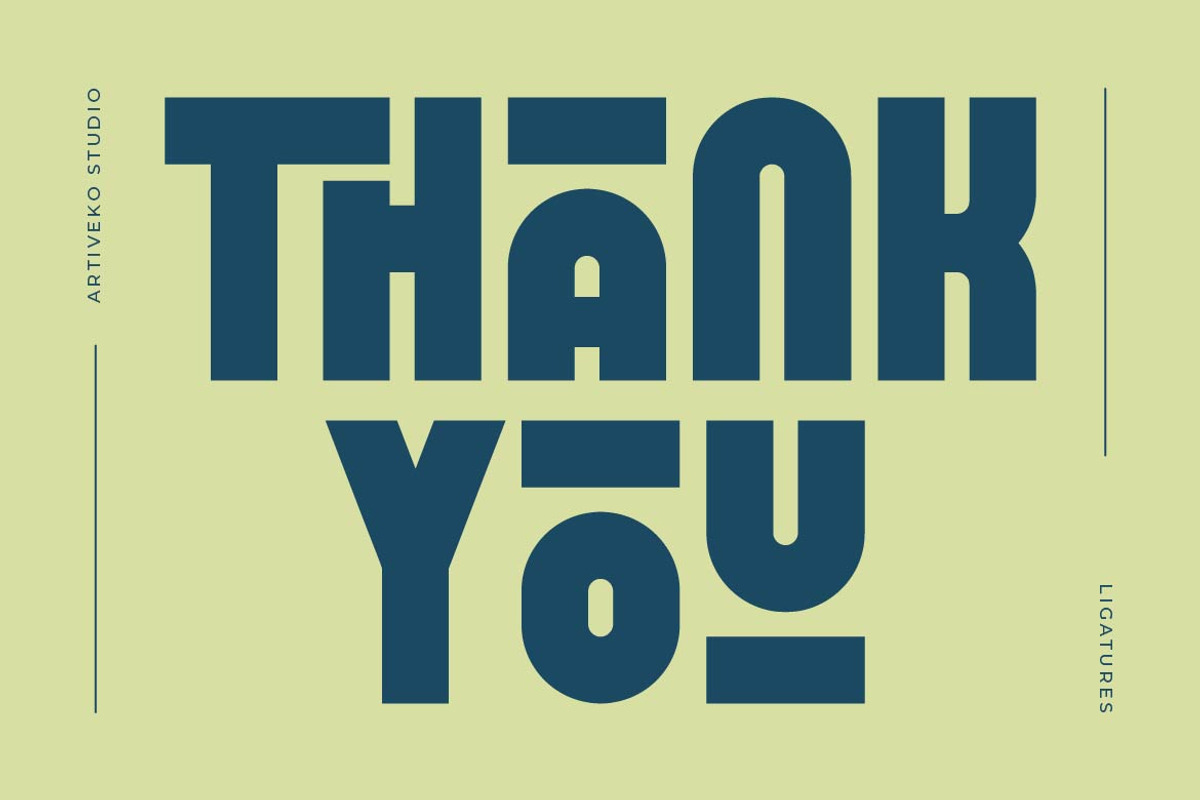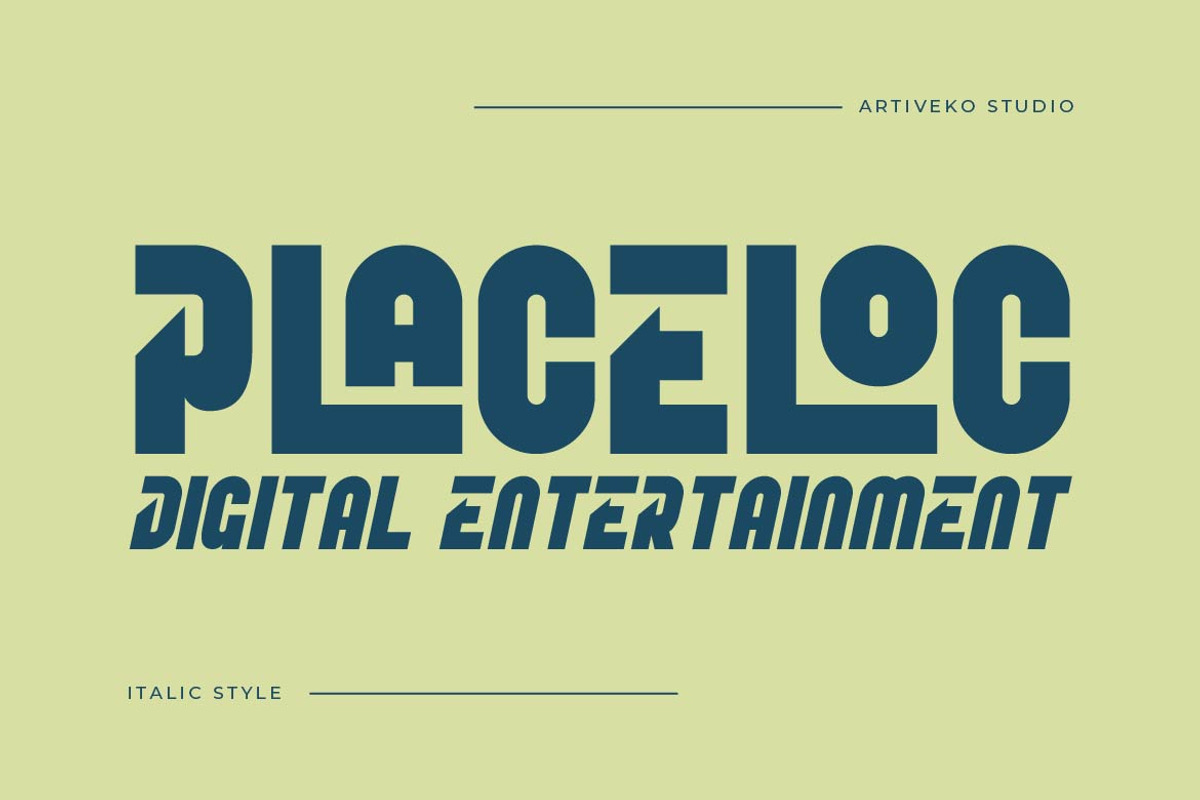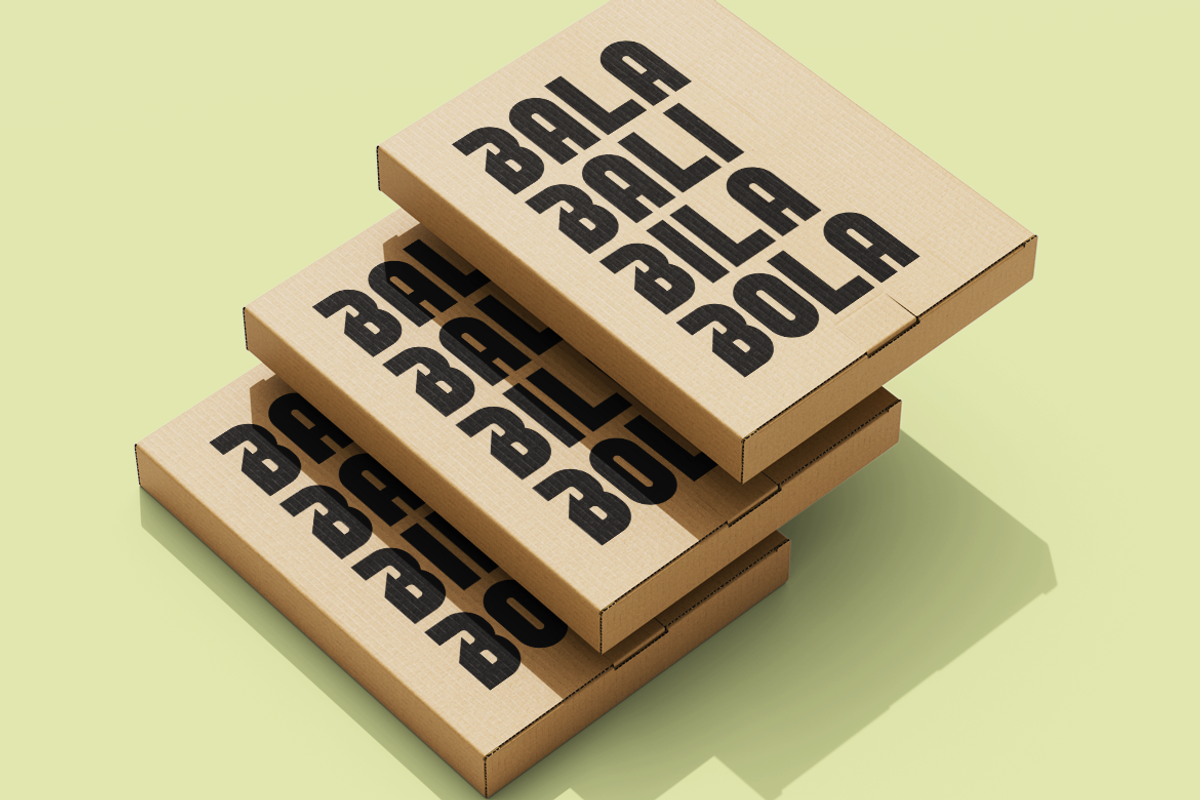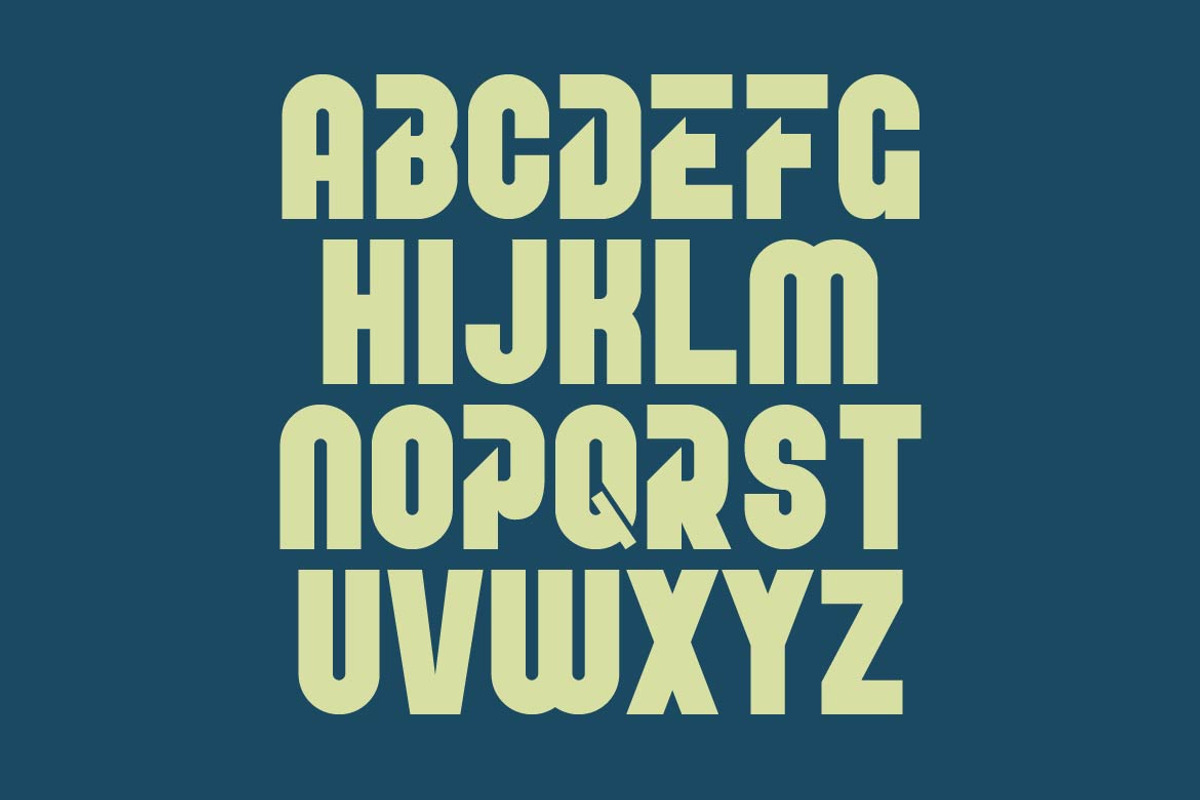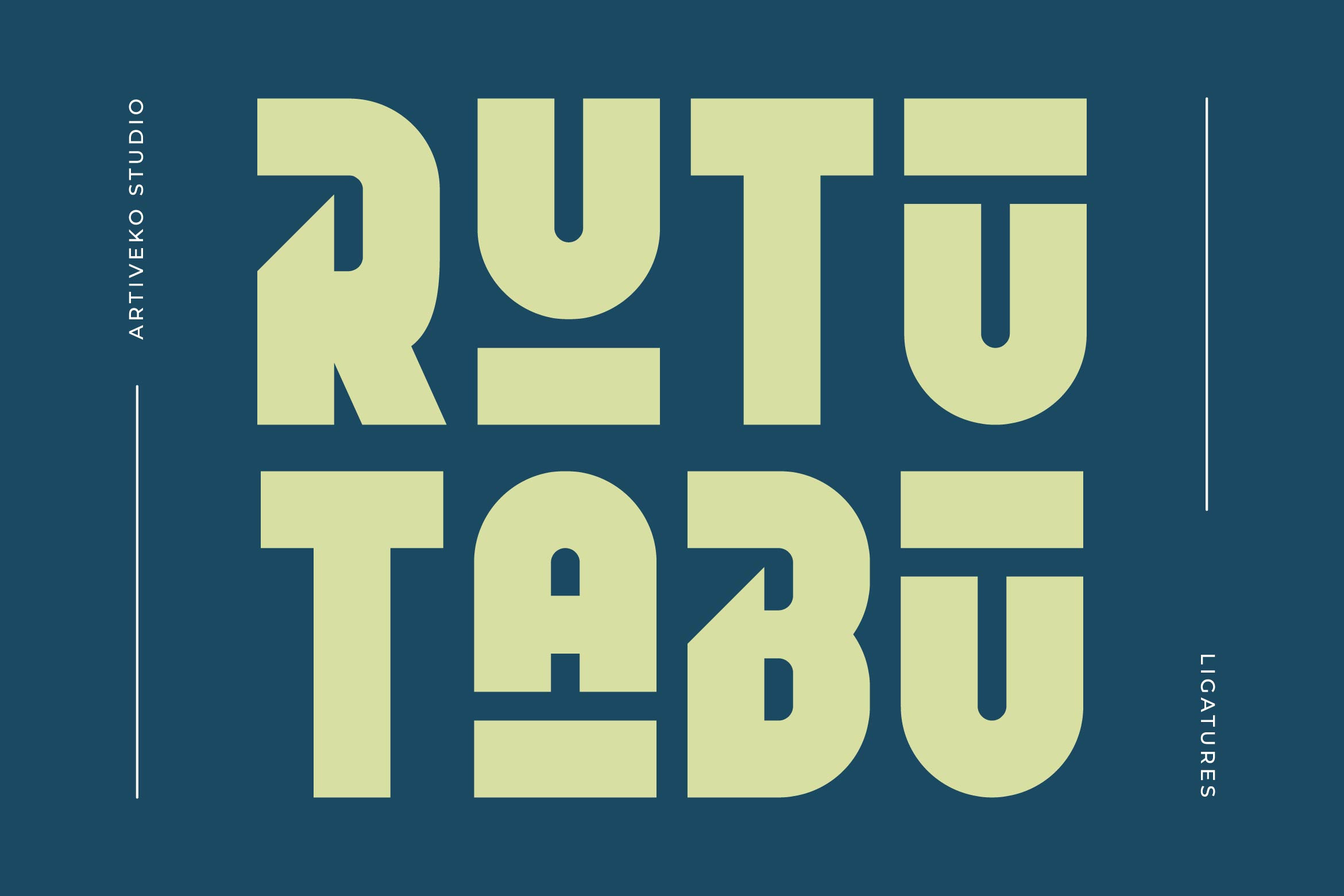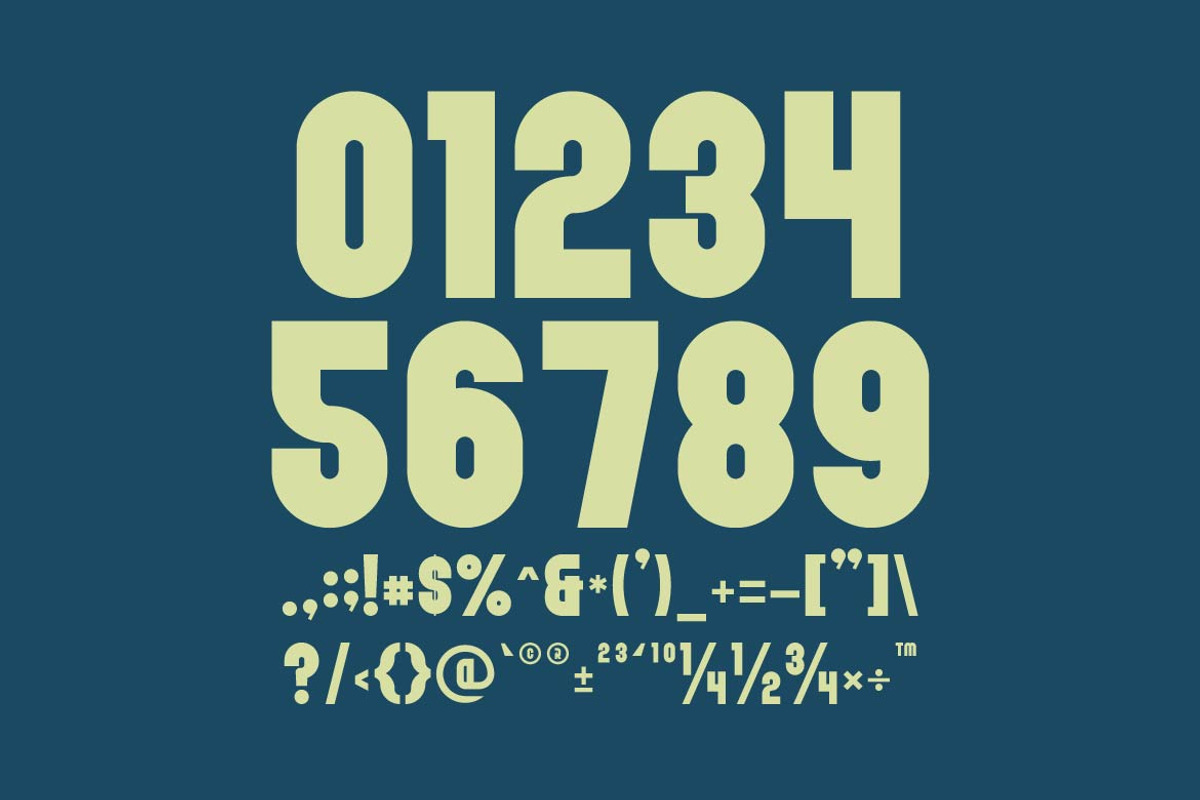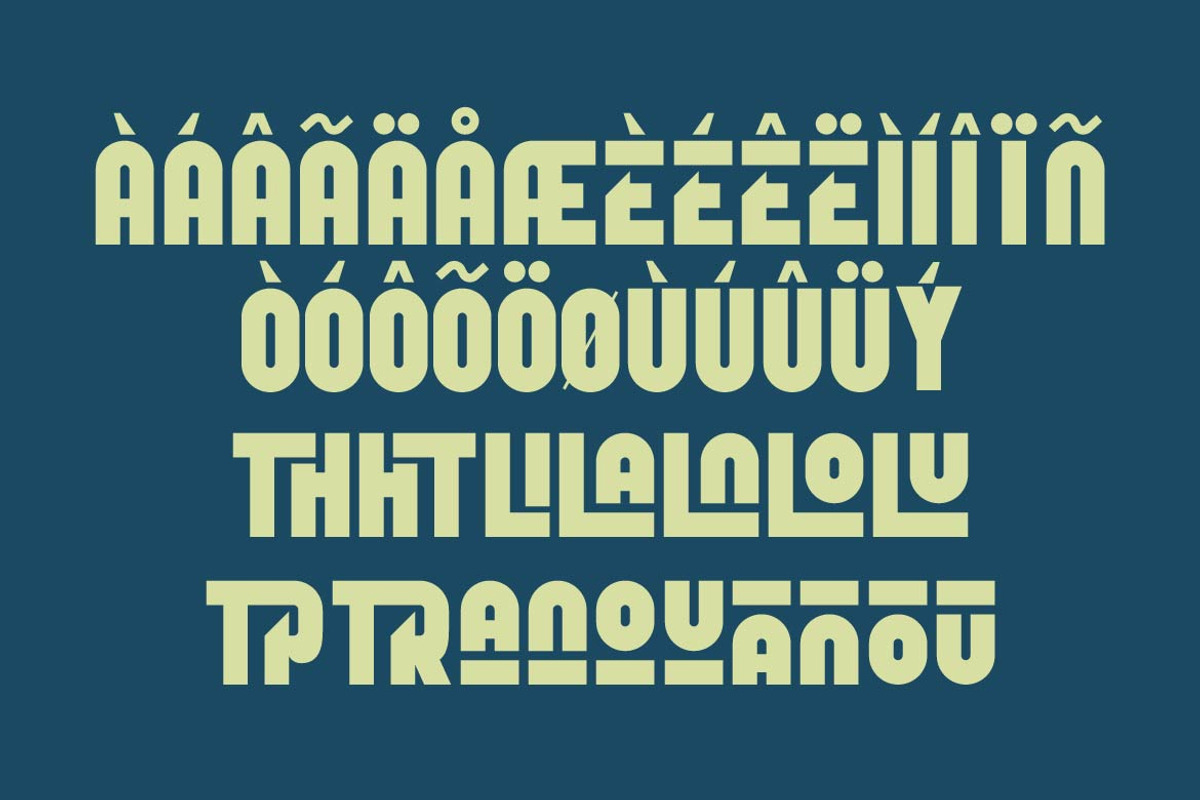
Rutu Tabu Creative Sans Font
Rutu Tabu is a creative sans serif font that brings playful originality and modern aesthetics into perfect balance. With its quirky letterforms and clean structure, Rutu Tabu is designed for designers who want to express bold ideas without sacrificing clarity. Whether you're working on branding, packaging, posters, or digital content, this font stands out with character and style.